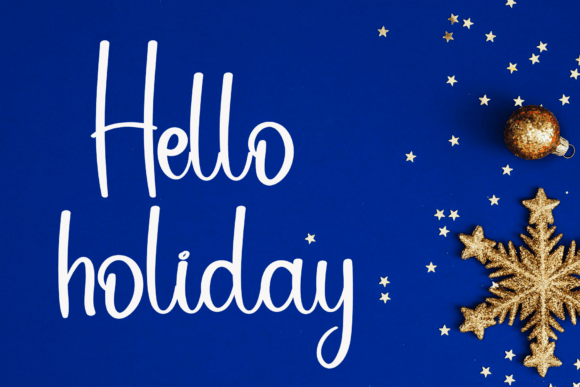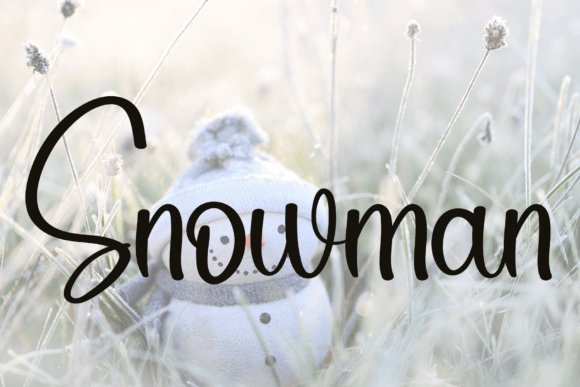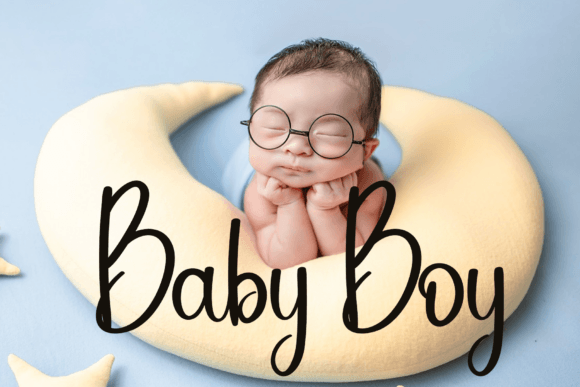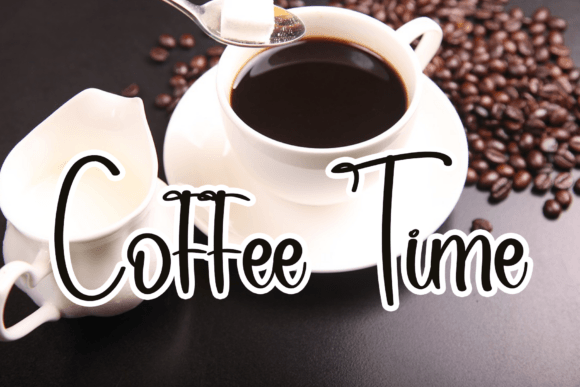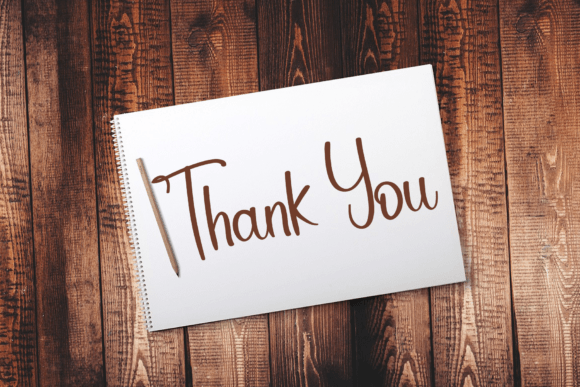
December Christmas Font: The Perfect Addition to Your Holiday Designs
As the holiday season approaches, designers and crafters are on the lookout for the perfect font to add a touch of warmth and festivity to their Christmas cards, decorations, and invitations. If you’re searching for a font that embodies the cozy and joyful spirit of Christmas, look no further than the December Christmas font.
What is December Christmas Font?
December Christmas is a beautiful, handmade font that exudes a sense of warmth and festivity. Its soft and playful letters are carefully crafted to bring a personal touch to your holiday designs. The font’s unique style captures the essence of the Christmas season, making it perfect for a wide range of applications, from holiday cards and decorations to invitations and more.
Characteristics of December Christmas Font
The December Christmas font boasts several characteristics that make it an ideal choice for your holiday designs:
- Cozy and Handwritten: The font’s handmade, cursive style gives it a warm and cozy feel, perfect for creating a sense of comfort and familiarity in your designs.
- Soft and Playful Letters: The font’s letters are carefully crafted to be soft and playful, adding a touch of whimsy and fun to your designs.
- Festive and Joyful: The December Christmas font captures the joyful spirit of the holiday season, making it perfect for creating festive and engaging designs.
- Perfect for Personalized Designs: The font’s unique, handmade style makes it ideal for adding a personal touch to your holiday designs, from cards and invitations to decorations and more.
Uses for December Christmas Font
The December Christmas font is versatile and can be used for a wide range of applications, including:
- Holiday Cards: Add a personal touch to your Christmas cards with the December Christmas font, creating a warm and cozy feel that will make your cards stand out.
- Decorations: Use the font to create festive decorations, such as garlands, banners, and signs, that capture the spirit of the holiday season.
- Invitations: Create personalized invitations for your holiday parties and events with the December Christmas font, adding a touch of warmth and festivity to your designs.
- Digital Designs: The font is perfect for digital designs, such as social media graphics, blog posts, and email newsletters, where you want to add a touch of holiday cheer.
Tips for Using December Christmas Font
To get the most out of the December Christmas font, here are a few tips to keep in mind:
- Pair with Other Fonts: Experiment with pairing the December Christmas font with other fonts to create a unique and visually appealing design.
- Use in Combination with Images: Combine the font with festive images, such as holly, snowflakes, or Christmas trees, to create a cohesive and engaging design.
- Experiment with Colors: Try out different colors and color schemes to find the perfect combination that complements the font and your design.
The December Christmas font is a beautiful and versatile addition to any designer’s or crafter’s toolkit. Its cozy, handwritten style and soft, playful letters make it perfect for adding a personal touch to holiday cards, decorations, invitations, and more. With its wide range of uses and applications, the December Christmas font is sure to become a go-to choice for anyone looking to create festive and engaging holiday designs.